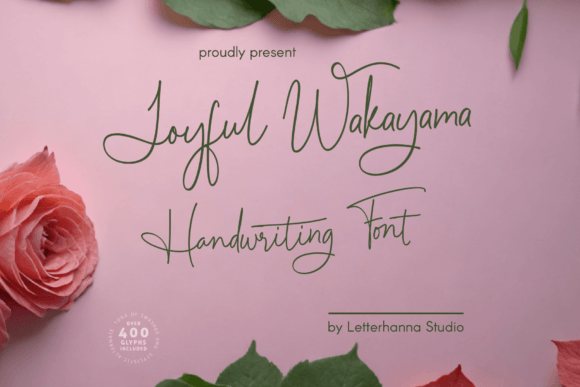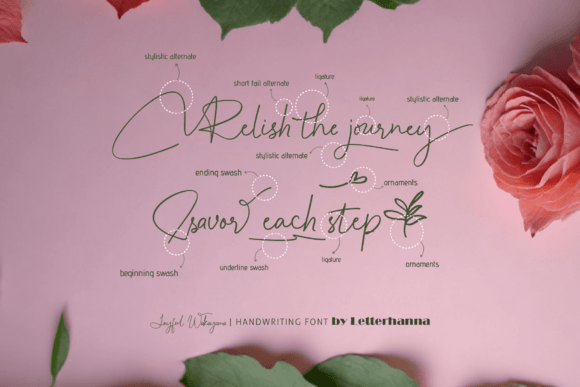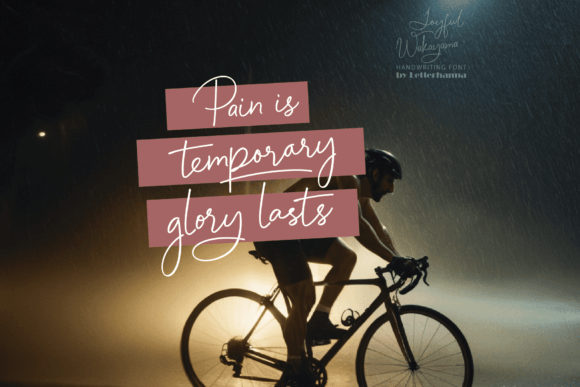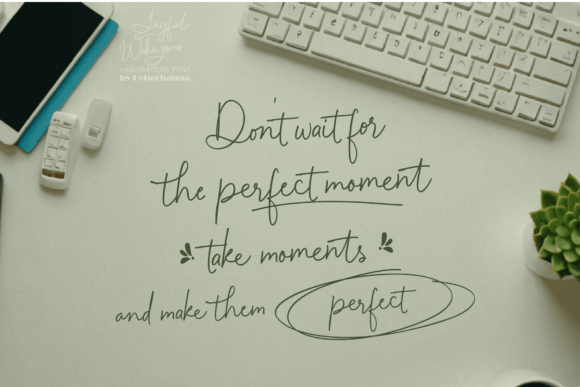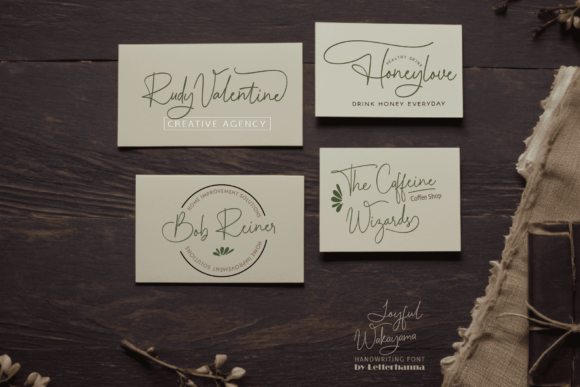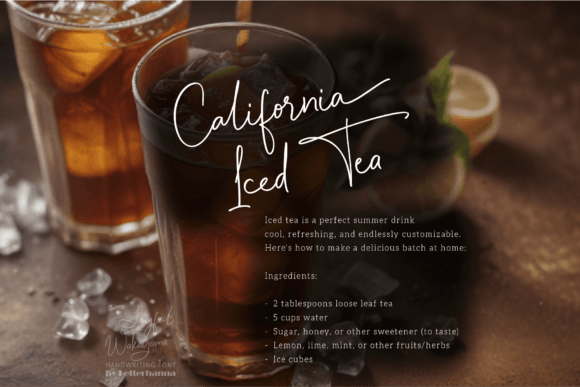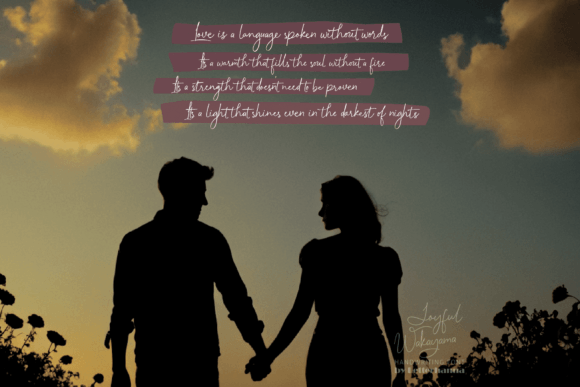
Unleash Your Creativity with Joyful Wakayama Font
Have you ever been on a creative high, where every idea seems to flow effortlessly onto the page? Maybe you’re brainstorming a new project, or jotting down notes for a story. Whatever the moment, it’s that spark of inspiration that sets our imagination ablaze. And for designers, finding the perfect font can be the key to unlocking that magic.
Enter Joyful Wakayama Font, a vibrant and playful handwriting script font designed to bring a smile to your face. This delightful typeface is packed with a treasure trove of stylistic alternates, swashes, and ligatures, waiting to be unleashed on your next project. Whether you’re working on a logo, brochure, or social media campaign, Joyful Wakayama Font is the perfect companion to add a touch of charm and whimsy.
As a designer, you know how valuable a great font can be in elevating your work. Joyful Wakayama Font is more than just a pretty face – it’s a tool to help you express your creativity and connect with your audience on a deeper level.
Key Features of Joyful Wakayama Font
- Font Family: Joyful Wakayama, with multiple weights and styles to suit various design needs.
- Character Set: Supports a wide range of languages, including Japanese and Latin scripts, making it suitable for multilingual designs.
- Size: Offers a range of font sizes, from 8pt to 72pt, to cater to various design requirements.
- Resolution: Designed for high-resolution displays, with a recommended resolution of 300 DPI or higher for optimal readability.
- Unique Characteristics: Features a playful, cursive script with a whimsical touch, perfect for creating eye-catching and engaging designs.
Review: Joyful Wakayama Font
Overall, I’m impressed with the Joyful Wakayama Font. It has a unique and playful feel that’s perfect for projects that need a touch of whimsy.
- The font’s bold and expressive qualities make it ideal for headings and titles.
- The varied letterforms and interesting flourishes add visual interest and personality to text.
- The font is highly customizable, allowing designers to adjust its weight, spacing, and color to suit their needs.
- The font may be challenging to read in certain contexts, such as at small sizes or in complex layouts.
- The design may not be suitable for formal or professional projects, as it can come across as too playful or childish.
- The font’s open type features may not work seamlessly with all operating systems or software.
While the Joyful Wakayama Font has some limitations, I believe its unique charm and expressive qualities make it a valuable addition to any designer’s toolkit. With careful use and consideration, it can add a delightful touch to a wide range of projects.
Introduction to Joyful Wakayama Font
Getting Started with the Font
1. Experiment with different font sizes and styles to create visual interest.
2. Pair the Joyful Wakayama Font with other fonts to create a unique and eye-catching design.
3. Use the font in combination with images and graphics to create a visually appealing design.
2. Event branding and marketing materials.
3. Magazine and newspaper headlines.
Alternatives to Joyful Wakayama Font
1. Klee One Font
Klee One Font is a modern, elegant sans-serif font that works well for branding and advertising. It’s perfect for creating a professional and sophisticated look. Compared to Joyful Wakayama Font, Klee One Font is more formal and less playful.
When to use: Business cards, company logos, and marketing materials.
Great Vibes Font is a beautiful, hand-drawn font that’s ideal for creating a whimsical and artistic atmosphere. It’s perfect for designers who want to add a touch of personality to their work. Compared to Joyful Wakayama Font, Great Vibes Font is more cursive and less geometric.
When to use: Wedding invitations, children’s books, and creative projects.
Q: Is the Joyful Wakayama Font optimized for digital use?
Yes, the Joyful Wakayama Font is carefully crafted for optimal performance in digital environments. It includes features such as hinting, sub-pixel rendering, and advanced kerning, ensuring a crisp and clear display on various devices and screen resolutions.